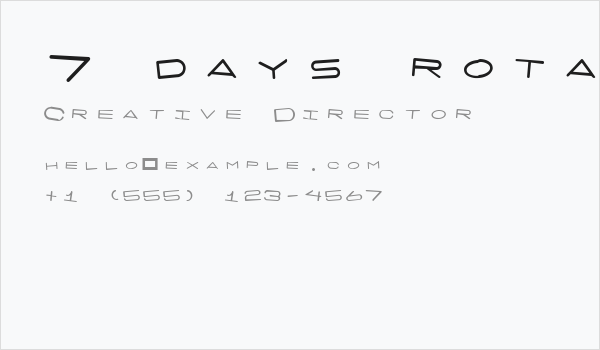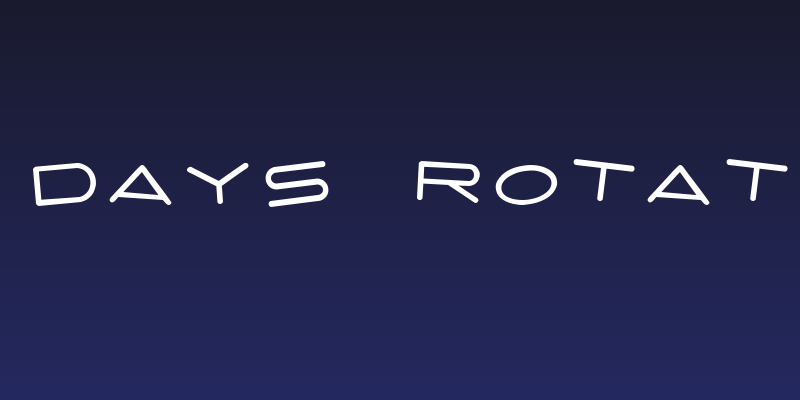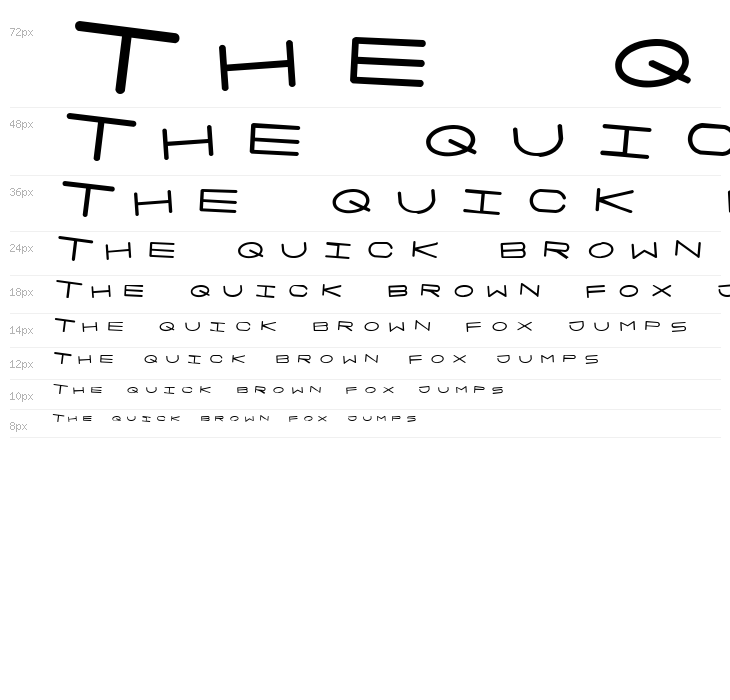
7 days rotated Font
7 days rotated Description
This font features a playful and quirky design with letters that have a slightly rotated and irregular appearance, giving it a dynamic and informal feel. The characters are bold and have a consistent stroke width, which adds to the legibility despite their unconventional shapes. The numbers and special characters maintain this whimsical style, making the font suitable for creative and fun projects. The overall look is modern and unique, with a touch of eccentricity that stands out.
| Overall Style | Modern, Quirky |
| Proposed Projects | Ideal for children's books, comic strips, playful branding, and creative posters. |